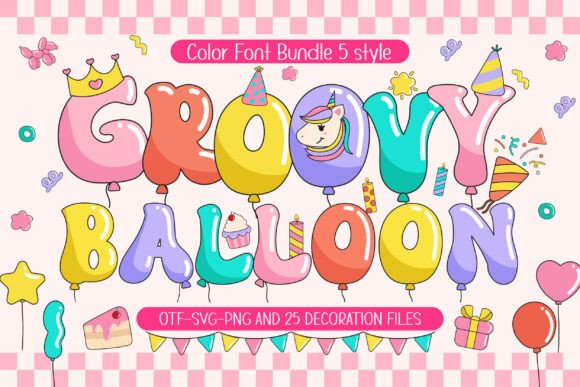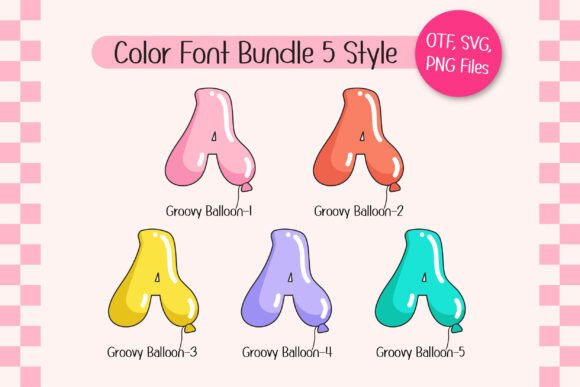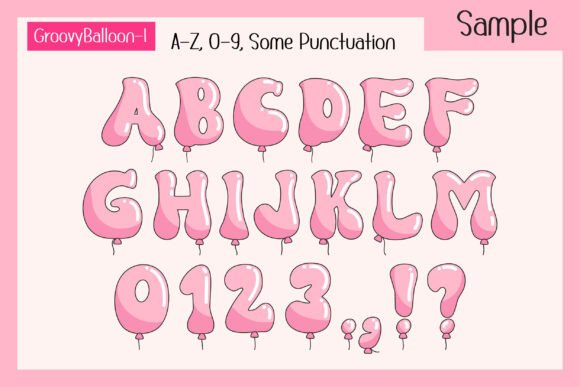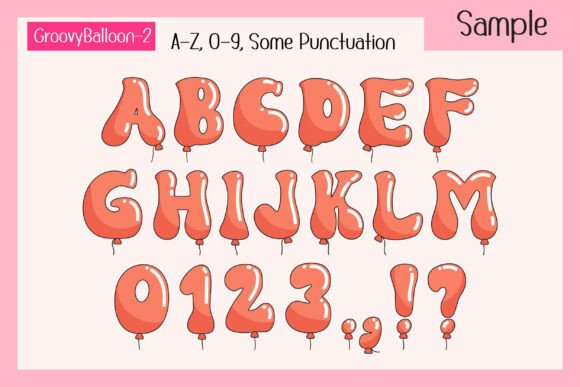
Groovy Balloon Font
About the Groovy Balloon Font
Welcome to the world of Groovy Balloon Font, a typeface that will inspire your next great project. Introducing “Groovy Balloon” a playful and vibrant font that combines a groovy style with fun balloon shapes, perfect for any party theme. This cheerful font set consists of 5 colorful font styles and comes with 25 bonus matching clip arts, making it ideal for party posters, birthday decorations, New Year party decor, T-shirts, branding, custom DIY craft projects, quotes, personalized names, and more. “Groovy Balloon” adds a festive and lively touch to your designs, making it the perfect choice for all your celebratory events!